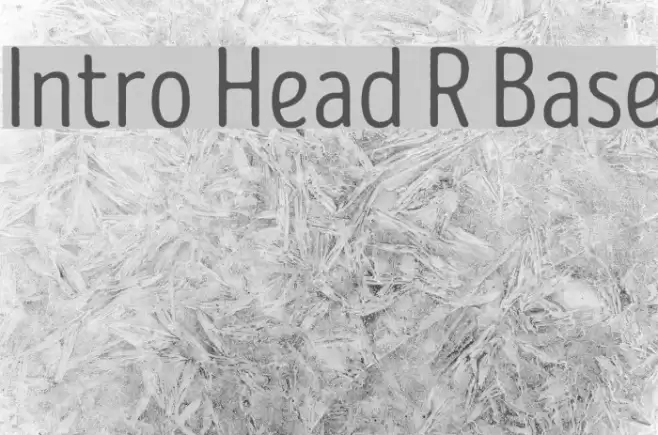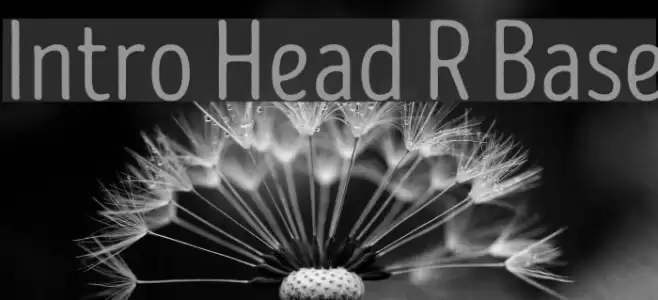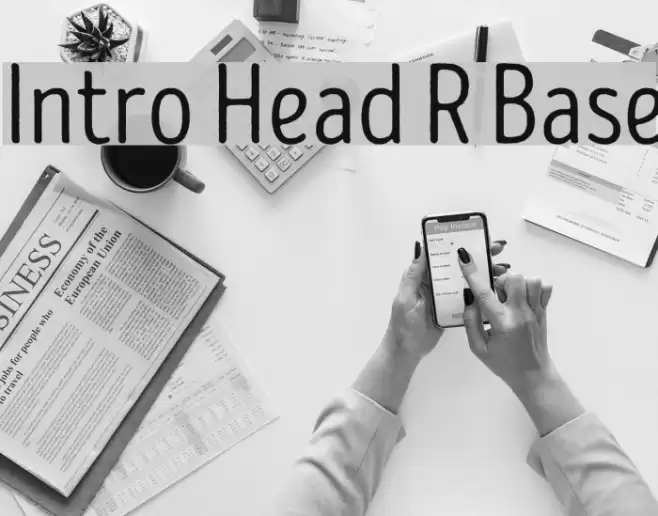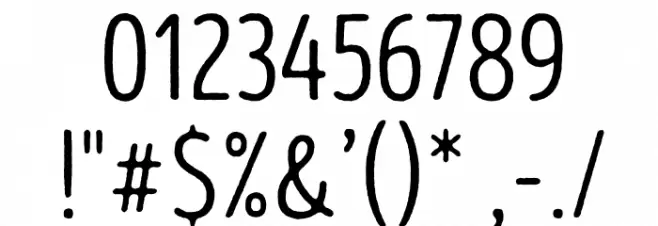
Intro Head R Base Font
Intro Head R Base Description
This font features a clean and straightforward sans-serif design with rounded edges, giving it a friendly and approachable appearance. The characters are evenly spaced, contributing to excellent readability. The uniform stroke width across all characters provides a consistent and harmonious look. The font's simplicity and clarity make it versatile for various applications, from digital interfaces to print media. Its modern aesthetic is complemented by a subtle touch of warmth, making it suitable for both professional and casual contexts. The numerals and special characters maintain the same design principles, ensuring a cohesive visual experience.
A clean, rounded sans-serif font with excellent readability and a friendly appearance from Uncategorized fonts.